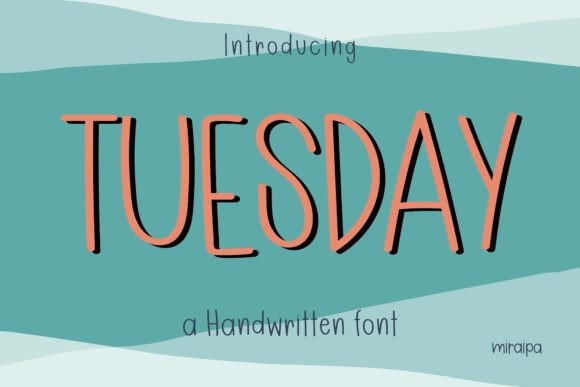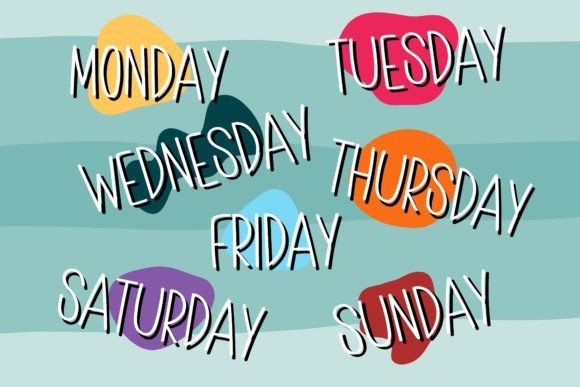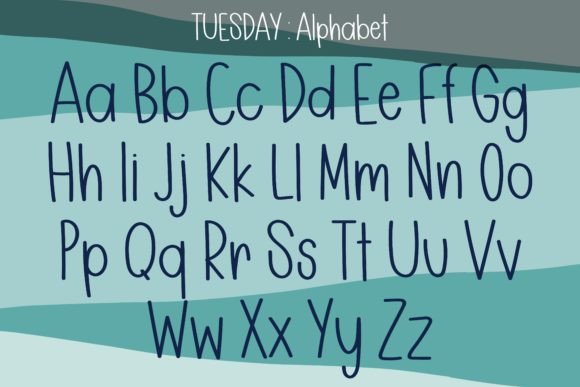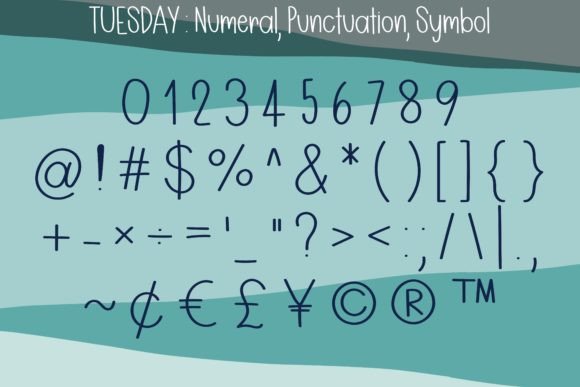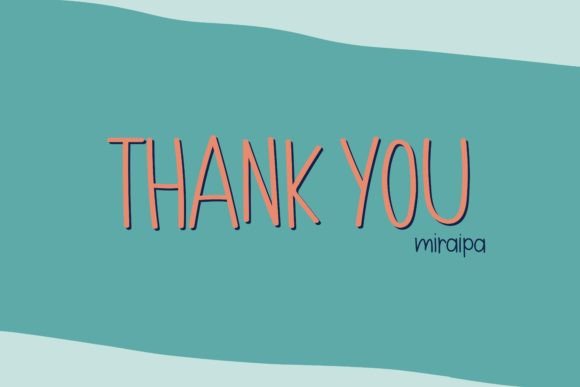
“Tuesday” is a delightful handwritten font designed with a friendly and lovely style that transcends its utilitarian function. With its versatile charm, this font becomes an integral tool for a myriad of creative projects, including daily diary planners, journals, and an array of perfect endeavors such as back-to-school materials, party decorations, invitations, festival decor, posters, blogs, clothing designs, child-related projects, greeting cards, and social media posts. Its inherent friendliness adds a personal touch to every application, making it the go-to choice for those seeking a font that breathes life into their DIY creations.
The handwritten nature of “Tuesday” offers an authenticity that goes beyond mere aesthetics. It’s not just about the letters and characters; it’s about conveying emotions and personality. This makes it especially fitting for projects where warmth and approachability are paramount, such as greeting cards or child-related designs.
Imagine flipping through a daily diary planner adorned with the charming strokes of “Tuesday” or receiving an invitation that exudes friendliness and warmth. The font becomes a visual storyteller, turning routine planning into a delightful experience and special occasions into memorable events.
Beyond personal applications, “Tuesday” shines in social media posts where its friendly style captures attention and engages audiences. It transforms mundane back-to-school materials into visually appealing creations and elevates party decorations to charming works of art. The versatility of “Tuesday” lies in its ability to seamlessly integrate into a diverse range of design contexts, enhancing each project with a touch of personality.
Adding “Tuesday” to your fonts library is akin to unlocking a treasure trove of creative potential. It’s not just a font; it’s a companion that brings a friendly and lovely atmosphere to everything it graces. So, embrace the warmth of “Tuesday,” let it infuse your projects with authenticity, and watch as it transforms your DIY endeavors into visually captivating and emotionally resonant creations.